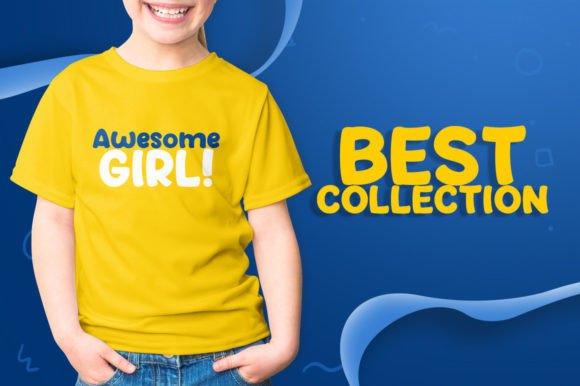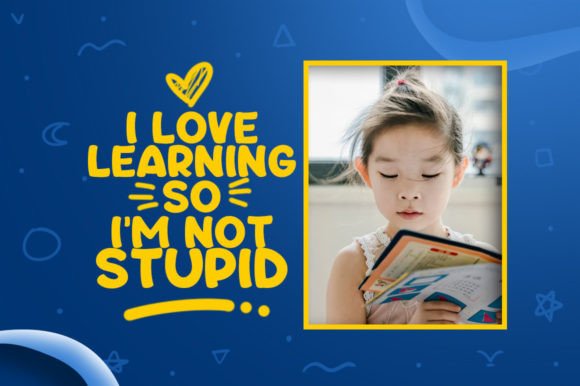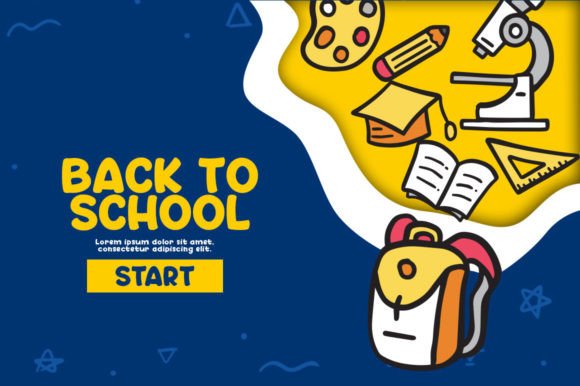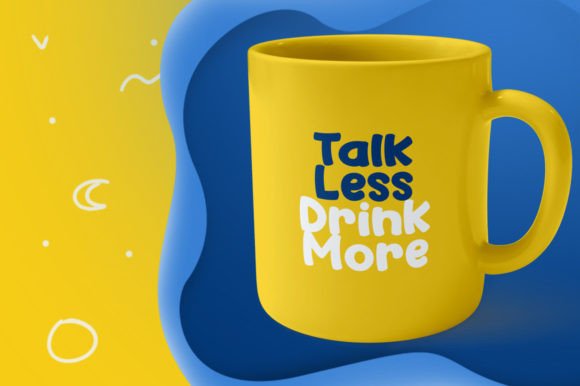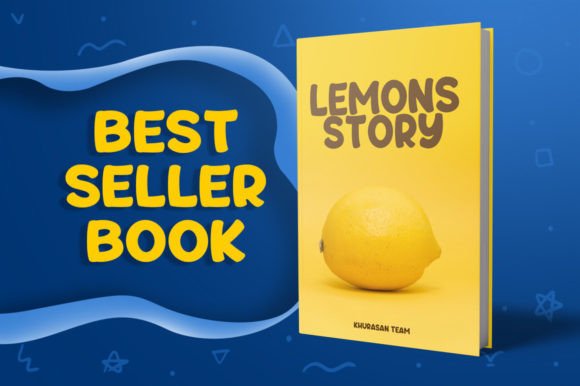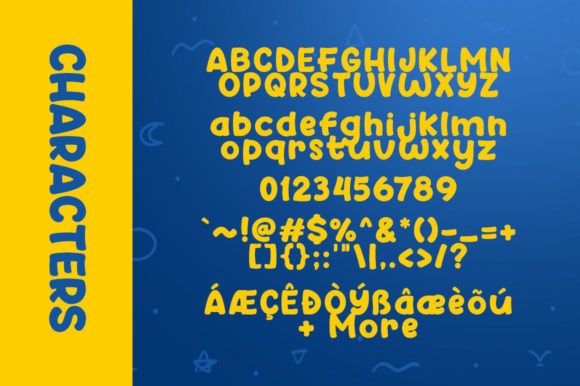
Enter Find Cartoon Font, a modern and fancy display font designed to elevate your projects to the next level. Whether you’re creating posters, logos, magazine covers, or book banners, this versatile font is the perfect addition to your design arsenal. Its versatility and style make it a valuable asset for designers, allowing you to take your creative ideas to new heights.
Key Features of Find Cartoon Font
- Font Styles: Offers a wide range of cartoon-style fonts, including bold, italic, and regular styles.
- Unique Characteristics: Includes hand-drawn and vector-based fonts, offering a distinctive and playful aesthetic.
Designer Review: Find Cartoon Font
Overall, I’d say that “Find Cartoon Font” is a solid resource for designers looking for a playful, cartoonish font. Here’s what I like about it:
- ✨ Wide selection of cartoon fonts: Find Cartoon Font offers an impressive collection of fonts that cater to various design styles and themes.
- ✨ High-quality fonts: The fonts are well-designed and look great on a variety of backgrounds and designs.
However, I do have some concerns:
Overall, I’d recommend “Find Cartoon Font” to designers who are looking for a fun and playful font to add to their project. While it has some limitations, the wide selection of fonts and easy-to-browse interface make it a great resource. Just be prepared to do some digging to find the perfect font!
Cartoon fonts are commonly used in:
- Comic strips and cartoons
To get the most out of cartoon fonts, remember to:
- Use them sparingly to avoid overwhelming the